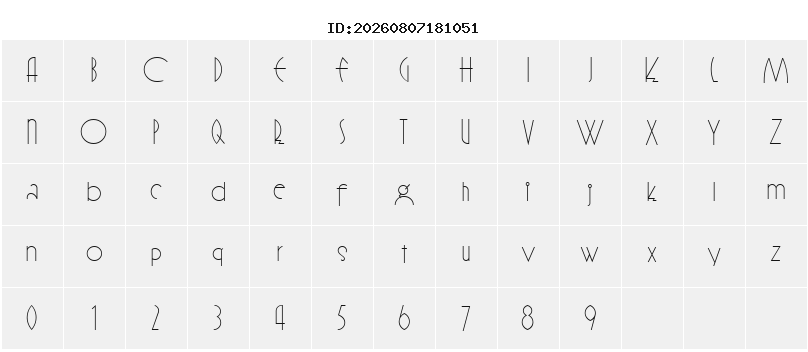
• Font Name: OK Chorale NF
• Full Font Name: OK Chorale NF
About OK Chorale NF.ttf
OK Chorale NF.ttf is a modern, elegant sans-serif font designed for ultimate readability and visual harmony. Perfect for branding, headlines, web design, and print materials.